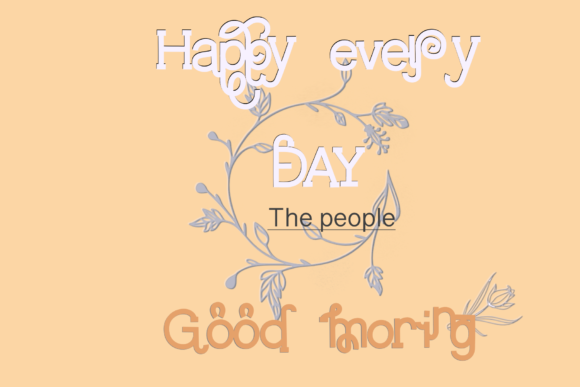
Introduction to Happy Every Day Font
Happy every day is a peculiarly attractive serif font.
With unique letters and a friendly, modern look, this font is perfect for a wide range of crafty ideas, from logos to birthday cards and so much more This font is PUA encoded which means you can access all of the glyphs and swashes with ease.